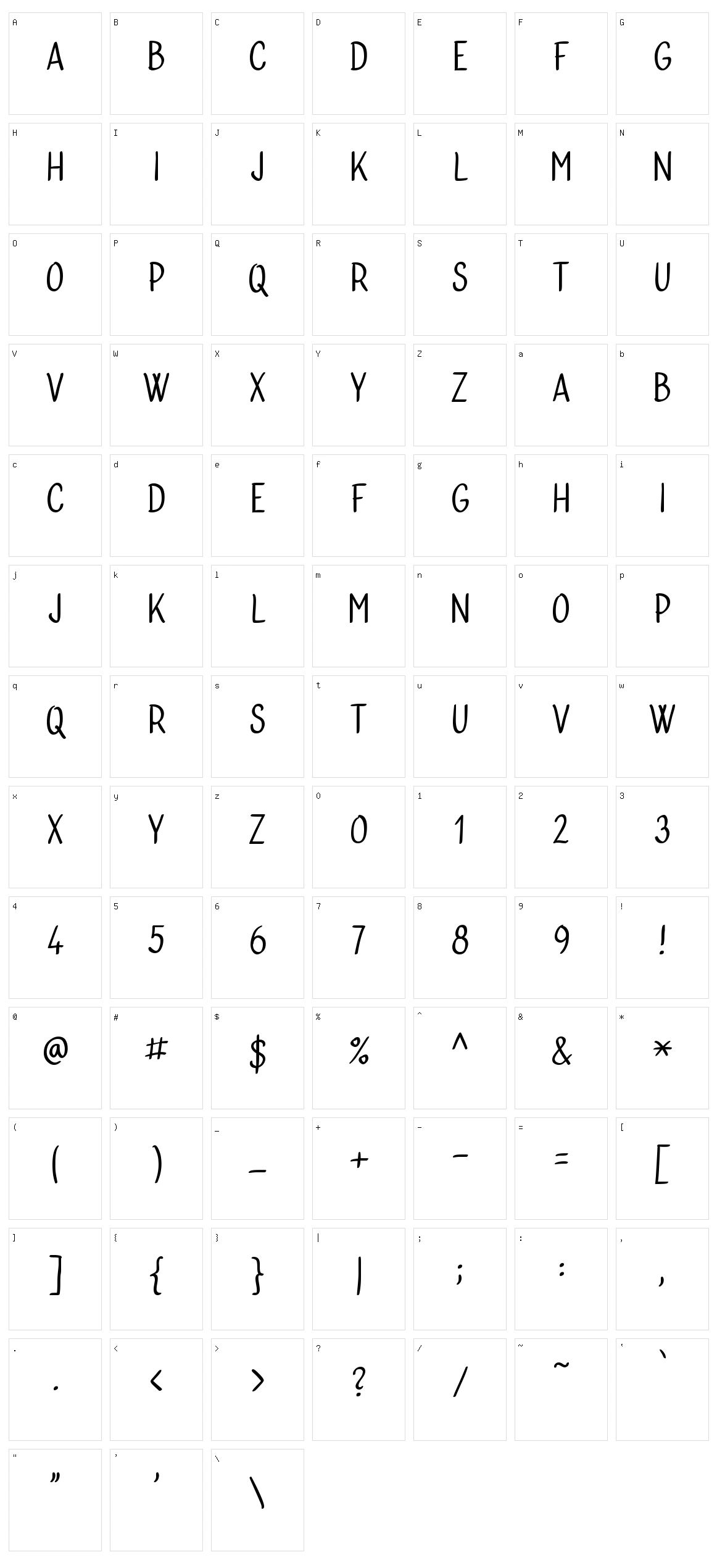
Bublina the Dog
Designed by: V?t ÄŒond?k
Bublina the Dog
Regular & Bold
by Vít Èondák
Category: handwriting
[ English Description ]
As the name suggests I intended this font to be used in comic bubbles so it does not include lower case letters.
Since version 0.29 the font includes Greek and Cyrillic letters (Russian, Ukrainian, Kazakh).
[ Èeský popis ]
Jak napovídá název, tenhle font jsem dìlal jako náplò do komiksových bublin, takže neobsahuje malá písmena.
Od verze 0.29 font obsahuje i øeckou alfabétu a azbuku.